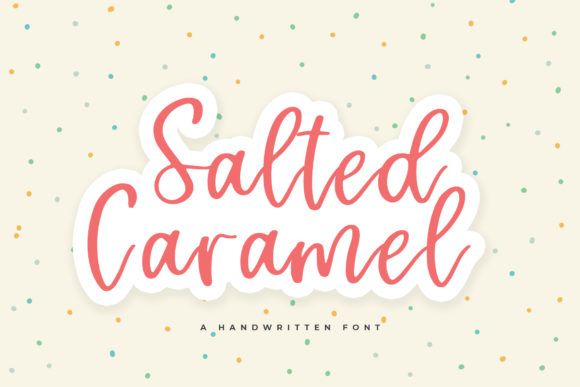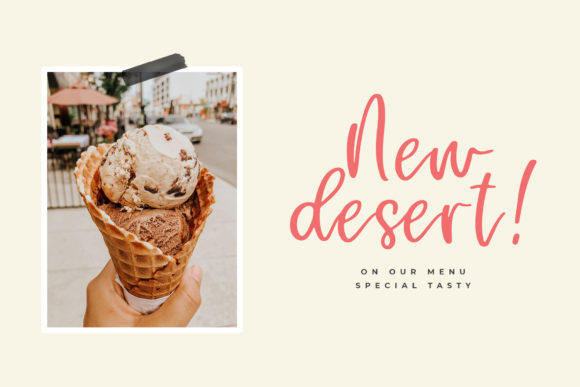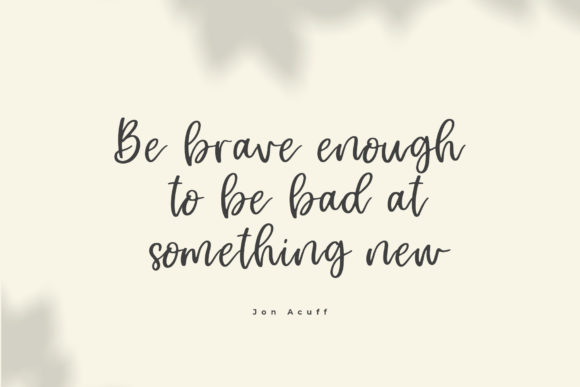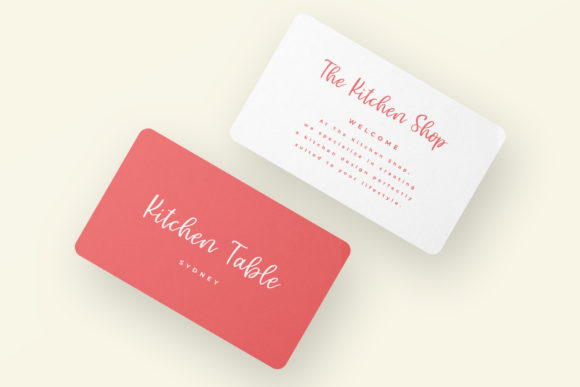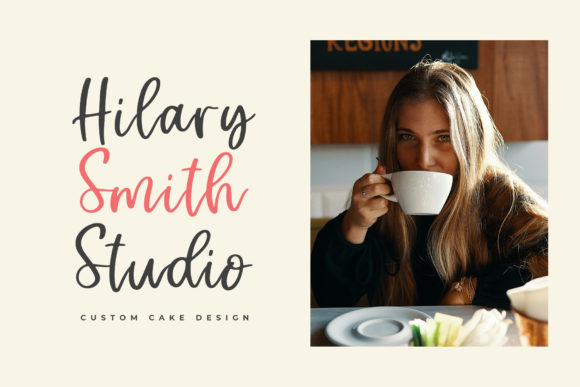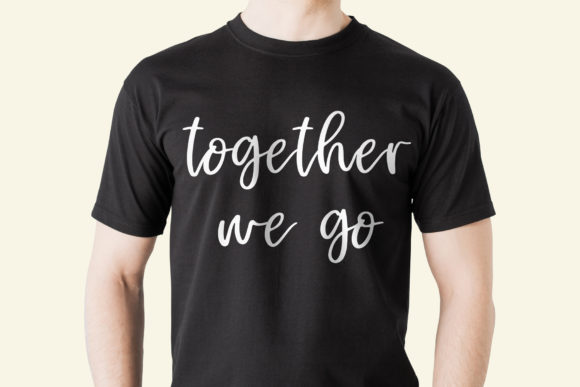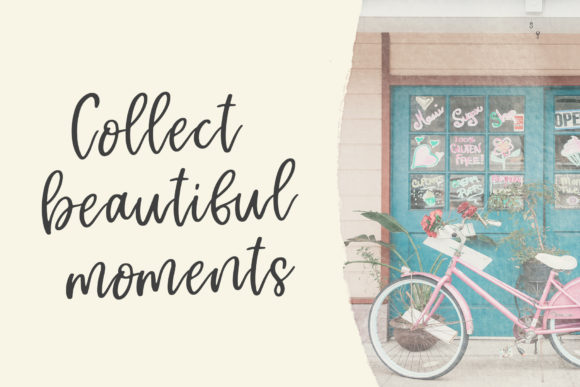
Salted Caramel Font
About Salted Caramel Font
Salted Caramel is a delicate and elegant handwritten font. Its distinct and well rounded letters make this font a masterpiece. Fall in love with its incredibly versatile style and use it to create spectacular designs!